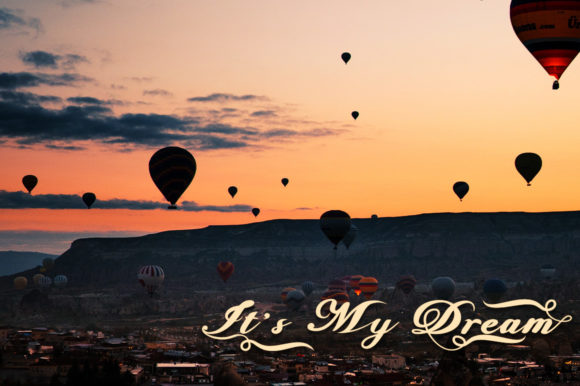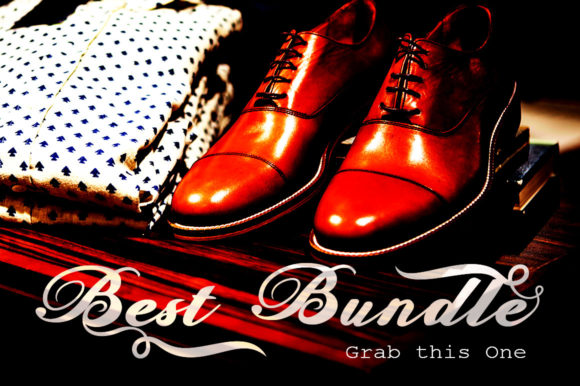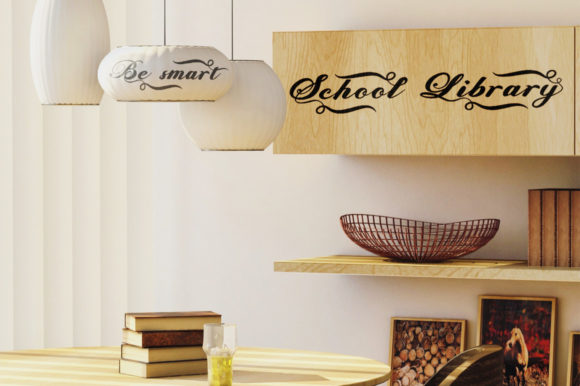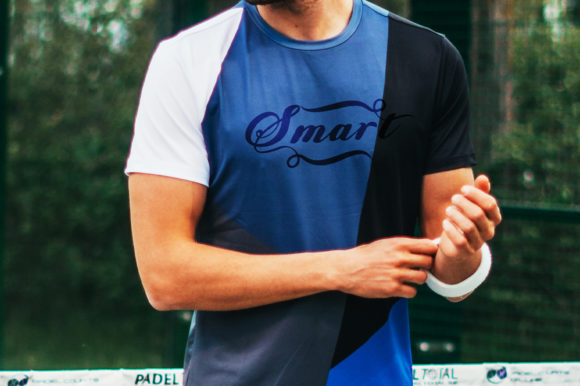
Cappadocia Font: Elevate Your Designs with Elegance and Style
Are you tired of using the same old fonts for your titles and logo projects? Do you want to add a touch of sophistication and elegance to your designs? Look no further than the Cappadocia Font, a beautiful, cursive, and bold handwritten font that’s sure to take your creations to the next level.
What is Cappadocia Font?
Cappadocia Font is a stunning, handcrafted font designed to bring a sense of luxury and refinement to your designs. With its flowing cursive lines and bold strokes, this font is perfect for creating eye-catching titles, logos, and branding materials that demand attention. Whether you’re a designer, crafty DIY enthusiast, or simply someone who appreciates beautiful typography, Cappadocia Font is an excellent choice.
Key Features of Cappadocia Font
• PUA Encoding: Cappadocia Font is PUA (Private Use Area) encoded, which means you can easily access all the glyphs and swashes without any hassle. This feature makes it simple to customize your text and add unique flourishes to your designs.
• Cursive and Bold: The font’s cursive and bold characteristics make it perfect for creating elegant and sophisticated text. The flowing lines and strokes add a touch of refinement and luxury to your designs.
• Handwritten: The handwritten nature of Cappadocia Font gives it a personal and human touch. It’s perfect for creating bespoke designs that stand out from the crowd.
• Elegant Touch: The font’s elegant design makes it ideal for creating high-end branding materials, such as logos, business cards, and stationery.
Use Cases for Cappadocia Font
Cappadocia Font is versatile and can be used in a variety of design projects, including:
• Logo Design: Create stunning logos that make a lasting impression with Cappadocia Font.
• Title Design: Use the font to create eye-catching titles for books, magazines, and other publications.
• Branding Materials: Elevate your branding materials, such as business cards, brochures, and letterheads, with the elegant design of Cappadocia Font.
• Stationery: Add a touch of sophistication to your stationery, such as invitations, greeting cards, and thank-you cards.
Benefits of Using Cappadocia Font
By using Cappadocia Font in your designs, you can:
• Stand Out: Create unique and eye-catching designs that set you apart from the competition.
• Elevate Your Brand: Add a touch of sophistication and elegance to your branding materials and take your brand to the next level.
• Save Time: With its PUA encoding, you can easily access all the glyphs and swashes, saving you time and effort in the design process.
• Enhance Readability: The clear and flowing lines of Cappadocia Font make it easy to read, even in large blocks of text.
Tips for Using Cappadocia Font
To get the most out of Cappadocia Font, follow these tips:
• Experiment with Swashes: Take advantage of the font’s PUA encoding and experiment with different swashes and glyphs to add unique flourishes to your designs.
• Mix and Match: Combine Cappadocia Font with other fonts to create visually appealing and dynamic designs.
• Pay Attention to Kerning: Make sure to adjust the kerning to ensure that the font looks its best and is easy to read.
Cappadocia Font is a stunning, cursive, and bold handwritten font that’s perfect for designers and crafty DIY enthusiasts looking to add a touch of elegance and sophistication to their designs. With its PUA encoding, flowing lines, and elegant design, this font is sure to elevate your titles, logos, and branding materials to the next level. So why wait? Give Cappadocia Font a try today and experience the power of beautiful typography!